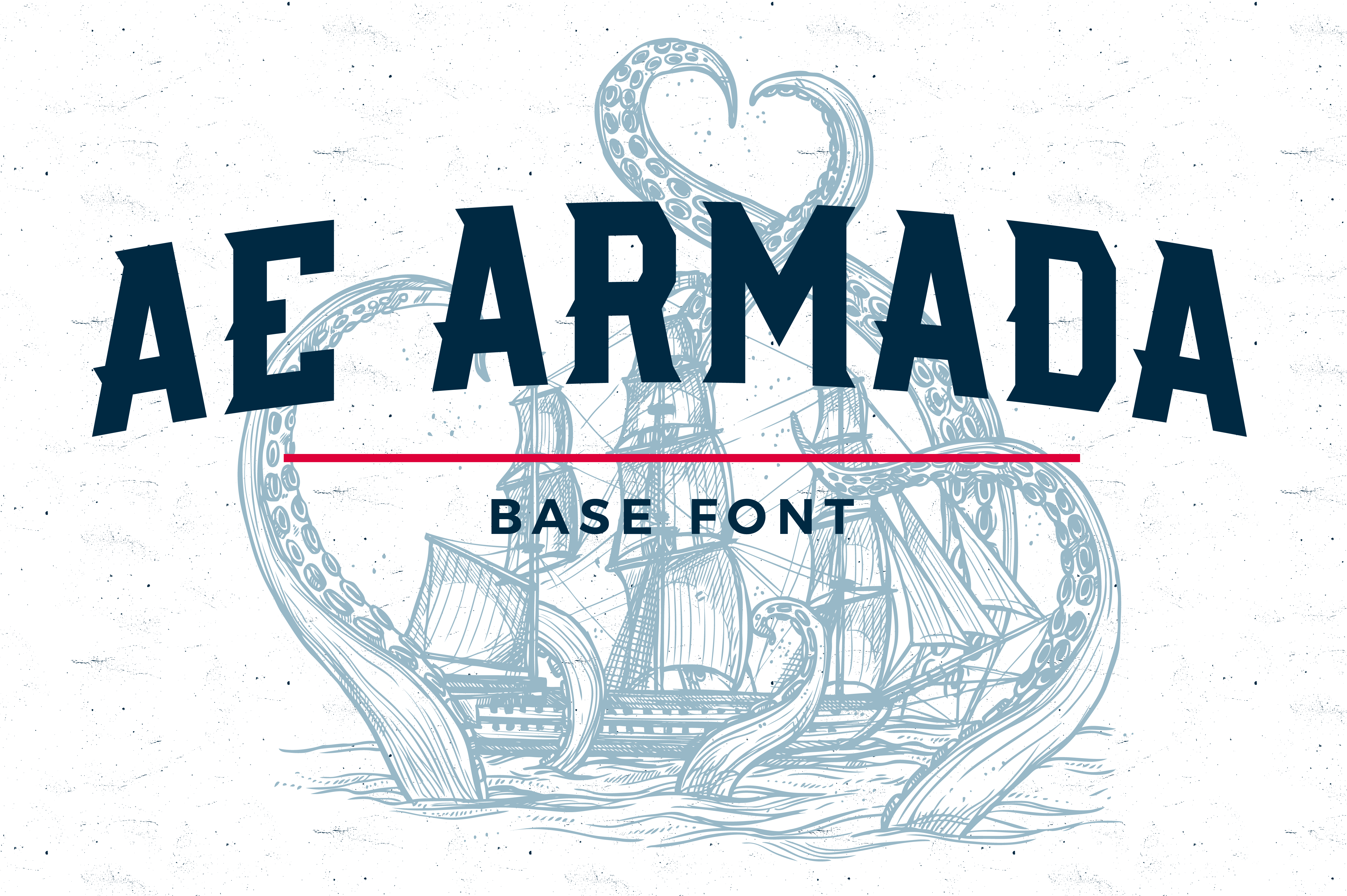
AE Armada Base Font
Want to try out the new AE Armada Display Typeface before buying the entire typeface? Here's your chance. With this product, you get the core font, which the rest of the typeface (https://crmrkt.com/539kbE) is based.
When you need to win a battle on the seas, you bring out a fleet of warships, called an Armada, to overwhelm opponents.
In that spirit, AE Armada will elevate your design to take over your audience's imagination.
AE Armada adds a sleek, stylish look to your headline with a bit of flair.
Plus, each glyph has an uppercase version & lowercase alternate for ease of use.
Do you want to give your design to stand out? Do you want to strike fear in your competition? Then use AE Armada to win the day.
More information on the full typeface: Its 16 versions — including 8 regular & 8 italic with shadowed and inline variants in each for layering — and stylish inline options allows you to build striking copy.